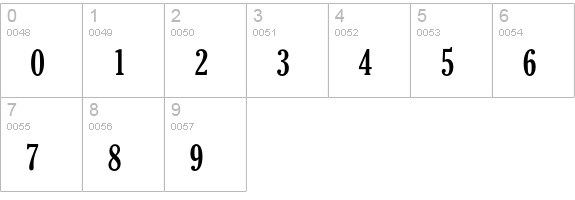
c03612418 Font Details
The c03612418 font is a stunning display font that will captivate your audience with its unique and stylish design. This font exudes a sense of modernity and sophistication, making it perfect for a wide range of design projects. With its bold and eye-catching letters, the c03612418 font is sure to make a lasting impression. Whether you're creating a logo, a poster, or a website, this font will add a touch of elegance and professionalism to your work. One of the best things about the c03612418 font is that it is completely free to download at FontsMarket.com. This means that you can use it in your personal and commercial projects without any restrictions. It's a fantastic opportunity to enhance your designs without breaking the bank. The c03612418 font offers a wide range of characters and glyphs, allowing you to create visually stunning and engaging typography. Its clean lines and balanced proportions make it easy to read and versatile enough to be used in various contexts. Whether you're a designer, a marketer, or a creative professional, the c03612418 font is a must-have in your font collection. Its timeless elegance and flexibility make it suitable for any project, from print to digital. So why wait? Head over to FontsMarket.com and download the c03612418 font for free today. Elevate your designs with this exceptional font and impress your audience with its beauty and professionalism.